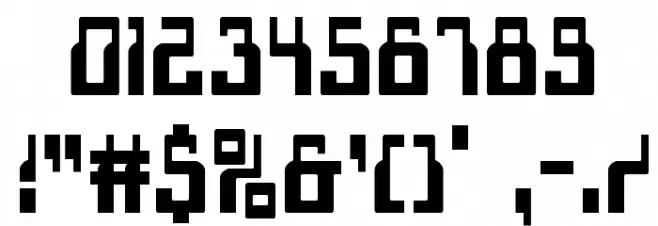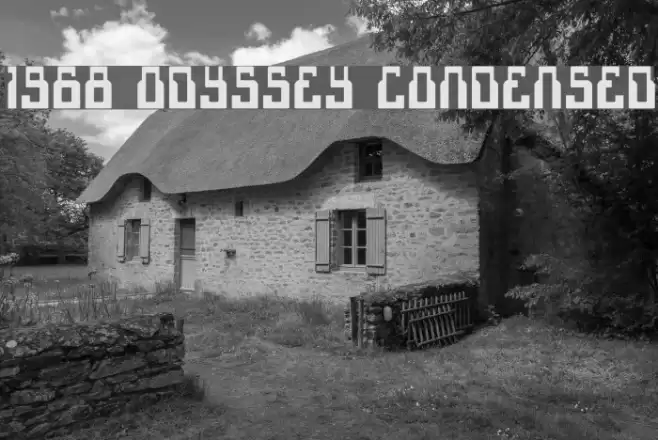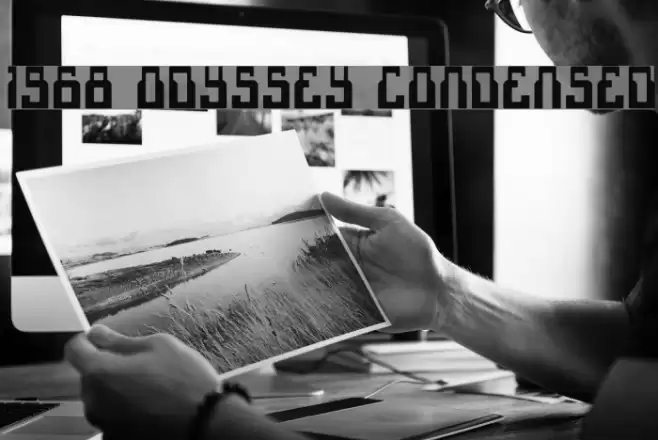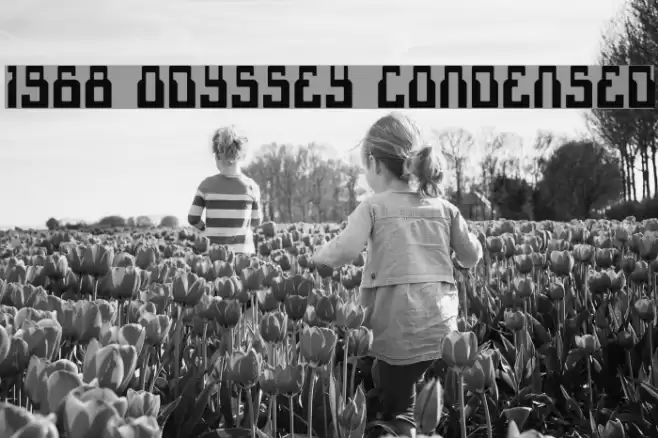
1968 Odyssey Condensed Font
1968 Odyssey Condensed Description
This font features a bold, geometric design with a futuristic and condensed style. The characters are constructed with thick, uniform strokes, creating a strong visual impact. The angular shapes and sharp edges give it a modern, industrial feel. The uppercase and lowercase letters maintain a consistent height, contributing to its compact appearance. Numbers and special characters follow the same design principles, ensuring a cohesive look across all glyphs. This font's unique style makes it suitable for projects that require a bold and distinctive typeface.
| Proposed Projects | Ideal for sci-fi themed designs, posters, branding, and digital interfaces that require a modern and bold typeface. |